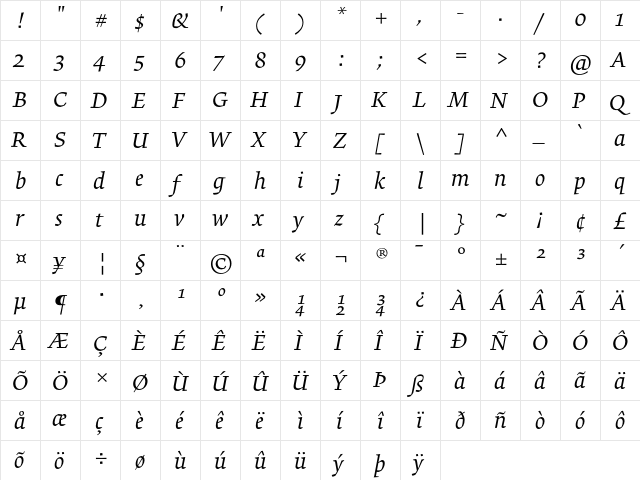
Alisal Regular
Alisal Regular Font Details
| Foundry | Copr. Carter & Cone Type Inc |
Design Context for Alisal Typeface
Alisal offers clean, dependable letterforms without strong stylistic allegiance, making it a practical choice for designers who need flexibility.
Dating back to 1995, this typeface is available in OpenType (OTF) format.